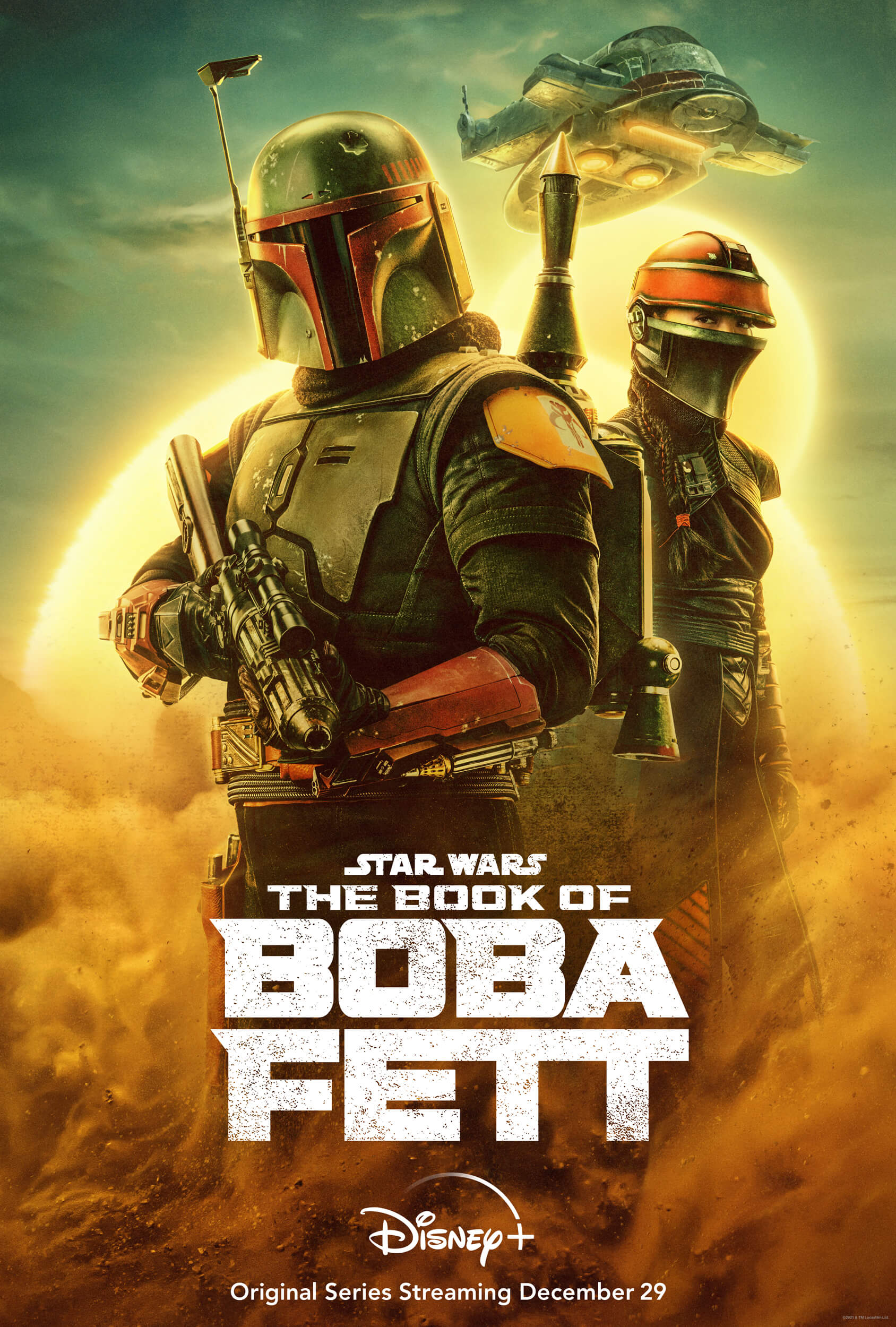
The Book of Boba Fett Font
AdventureThe Book of Boba Fett is a spin-off series of the Star Wars franchise, centered around the titular bounty hunter's adventures as he takes control of the criminal underworld of Tatooine.
The font used for the title of the series "The Book of Boba Fett" bears a resemblance to Hunterra, a font created by Variatype that features four different styles and a wide display. Those interested can download a demo version of the font with a limited character set for free from the Fonts Used Section.